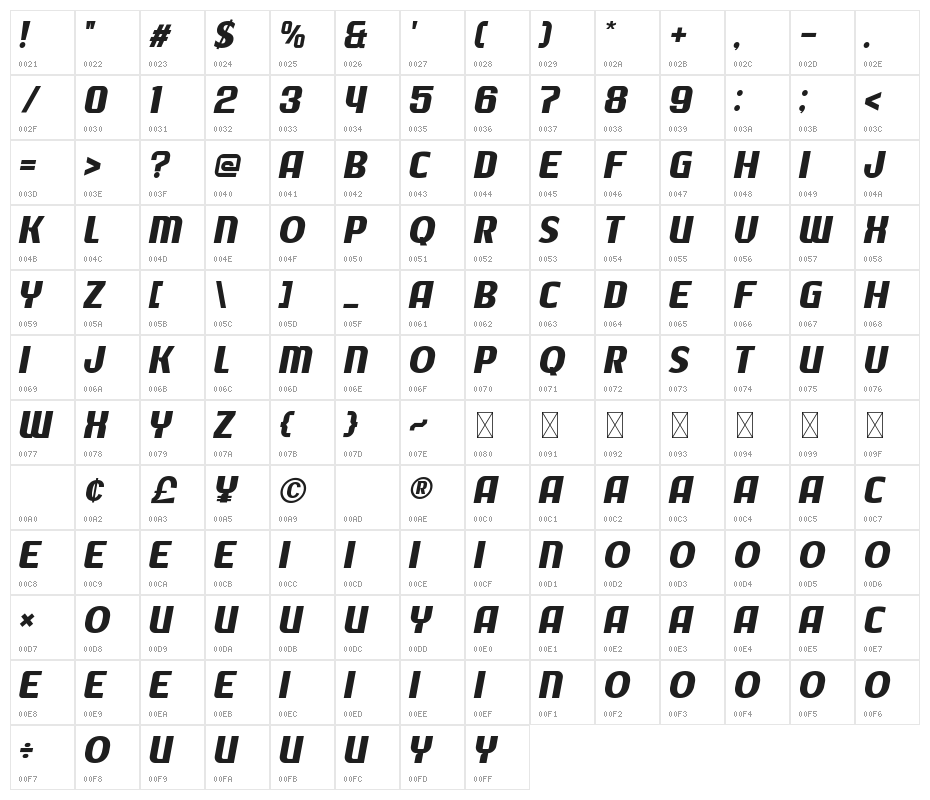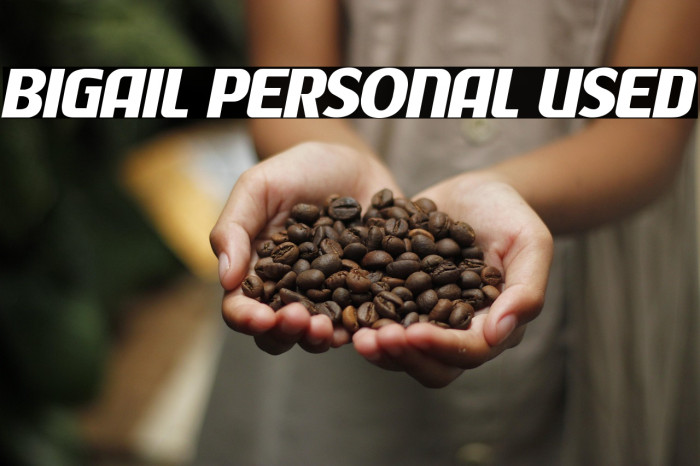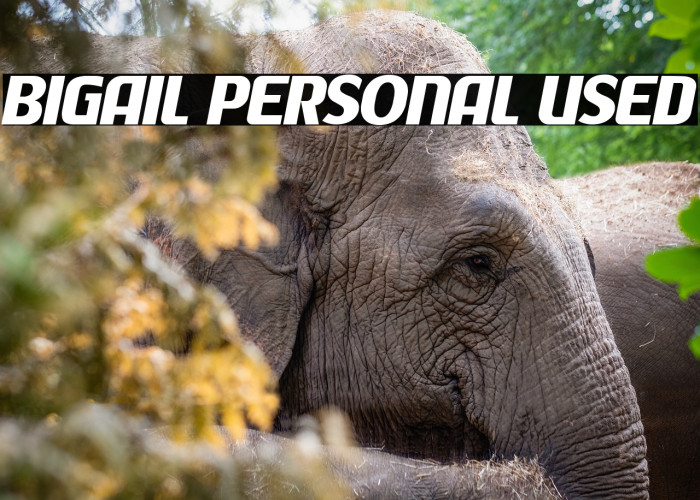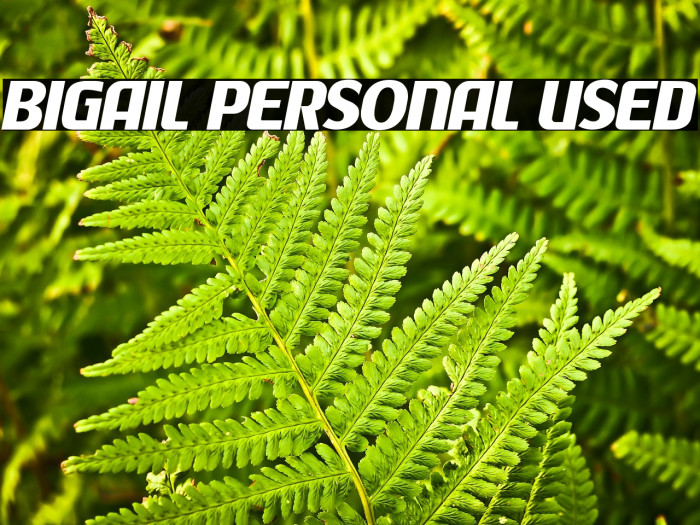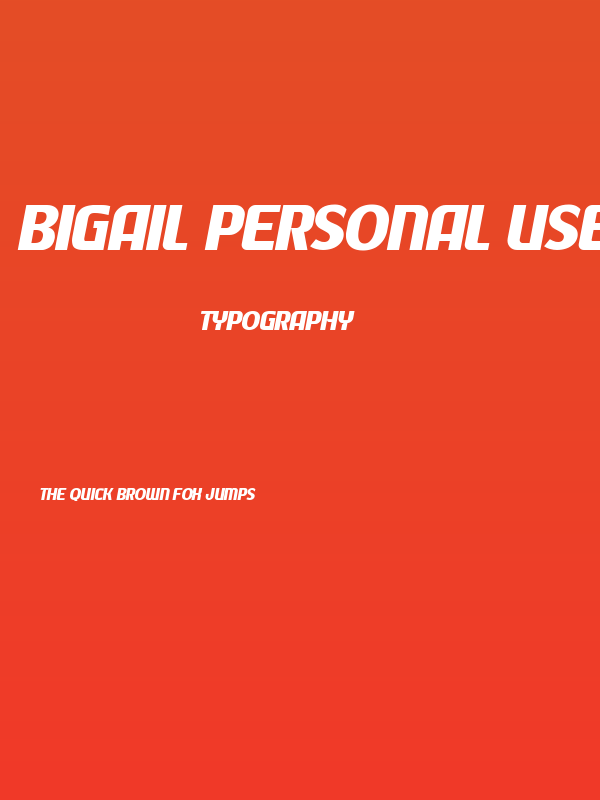
Bigail Personal Used Font
Bigail Personal Used Description
A bold, italicized sans-serif font with a modern and dynamic appearance, featuring tight character spacing and high contrast in stroke thickness.
| Proposed Projects | Logos, headlines, posters, branding materials. |